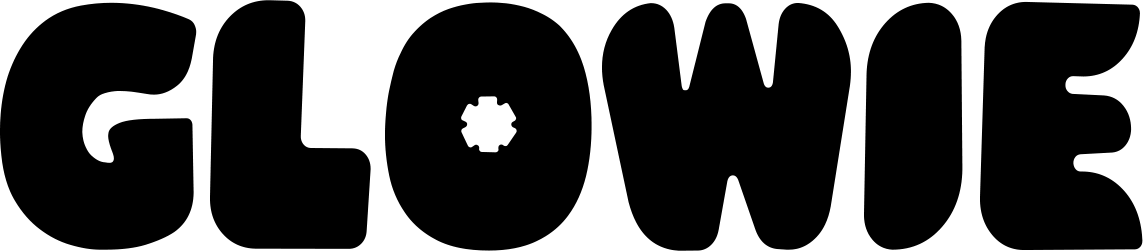
Glowie Font
Finding the right font for your design project becomes a challenge when all the other fonts are too boring or too formal. You need something that’s both stylish and unique. Glowie is the perfect font for you! With its groovy style, it’s perfect for invitations, posters, and other designs. Plus, this fat sans serif font is easy to use, so you can create beautiful designs in no time!